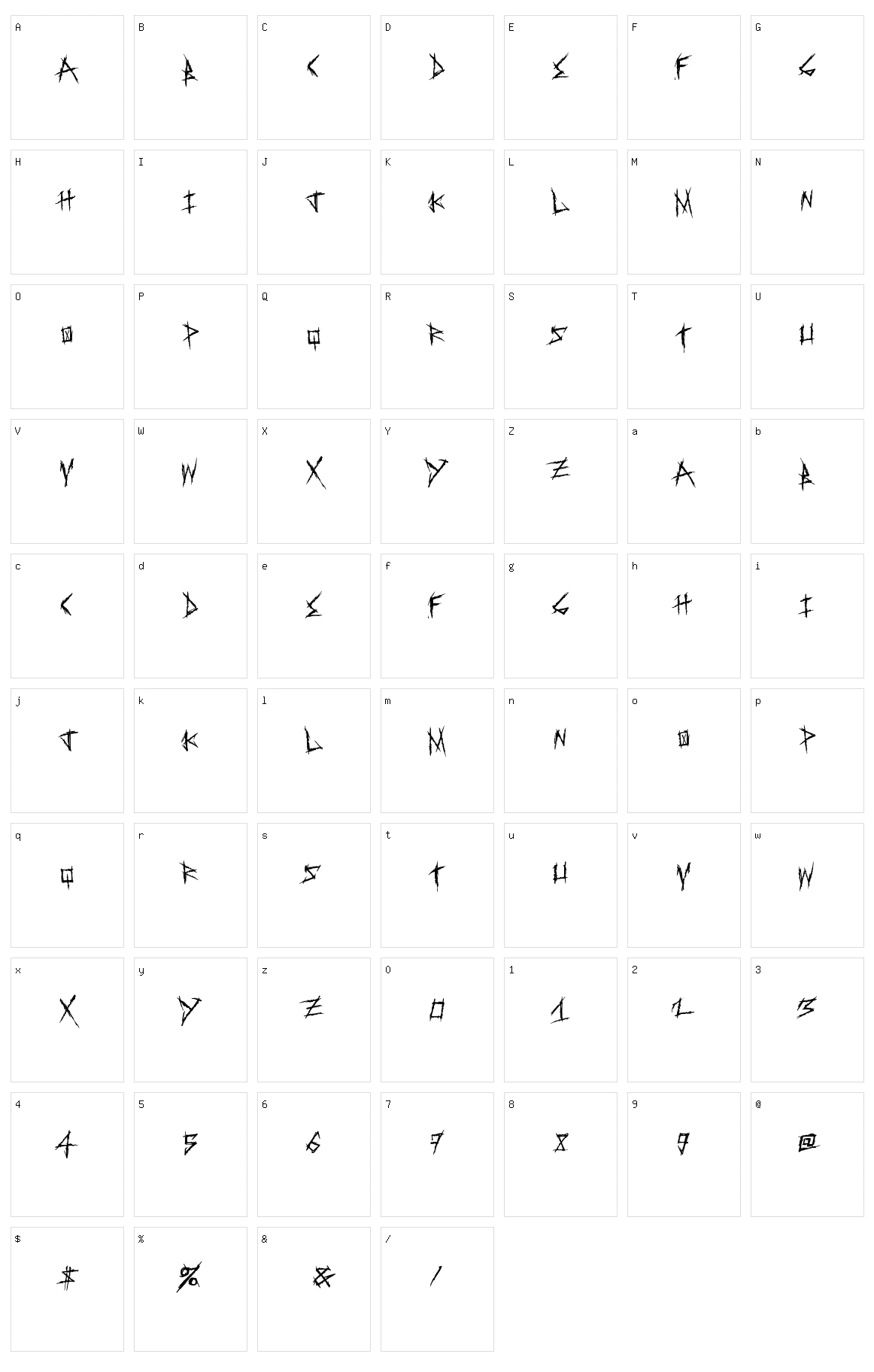
The free font Sweet Revenge is carefully designed by Xerographer Fonts, showcasing a thoughtful balance of creativity and usability and falls under the Horror font style. When you download the ZIP file, it contains only 19.11 KB of font files, making it lightweight and quick to download. Please review the license details below to understand permitted usage and distribution rights. If license information is not available, we recommend using this font for personal projects only or contacting the author directly for commercial usage permissions.